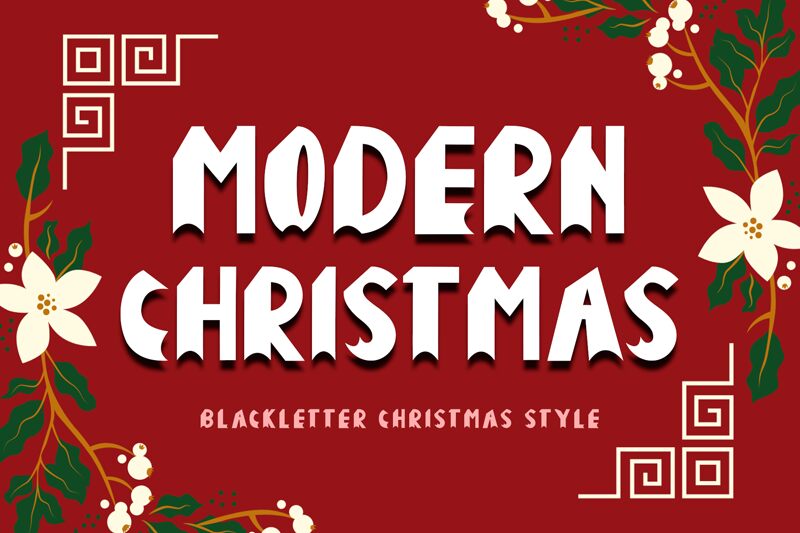
Modern Christmas font designed by Yoga Letter is a thematic holiday font with a sophisticated finishing. This free font combines modern and traditional styles which make it suitable for professional quality branding designs. This beautiful stylish font is free, but for personal use only. Commercial use licenses can be purchased separately from the author.
Modern Christmas font is holiday and festive-themed making it ideal for Christmas and special end-year events. Use it in your invitation cards, packaging and labels, posters, apparel, accessories, web design, and advertising brochure.